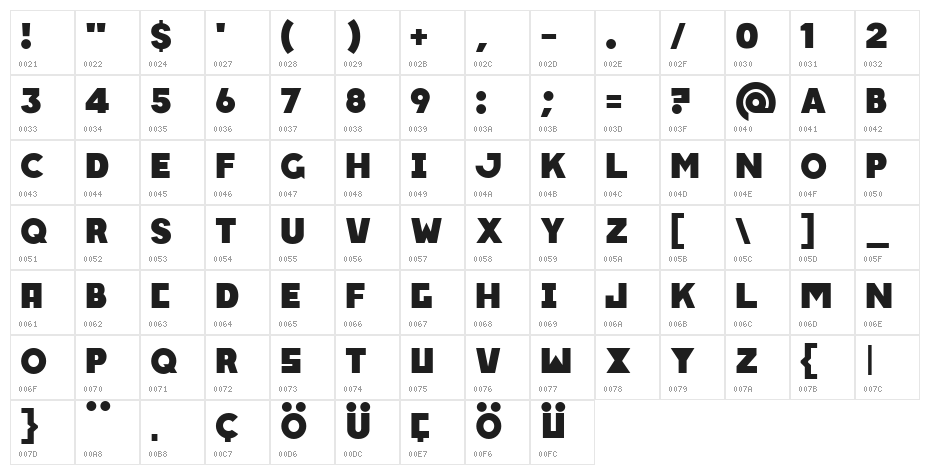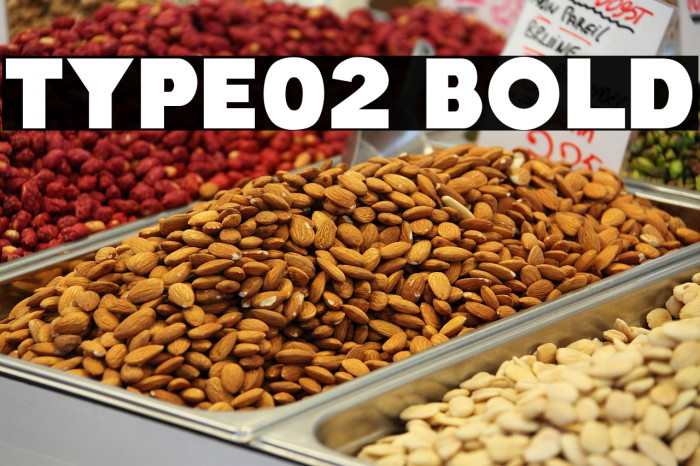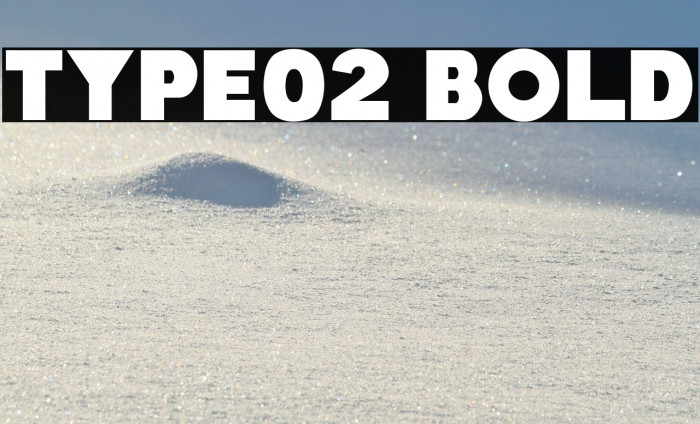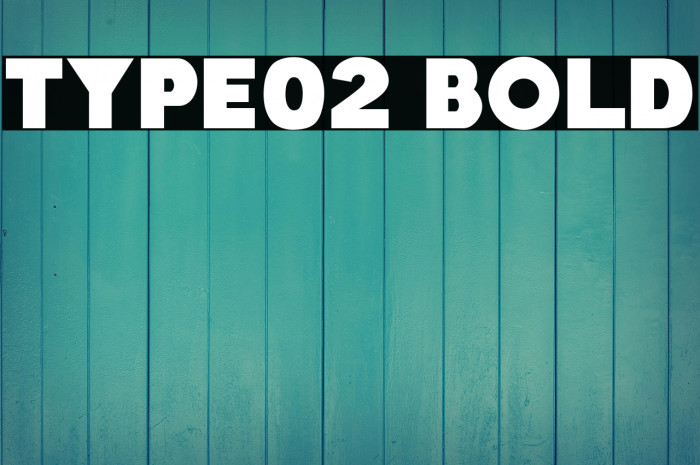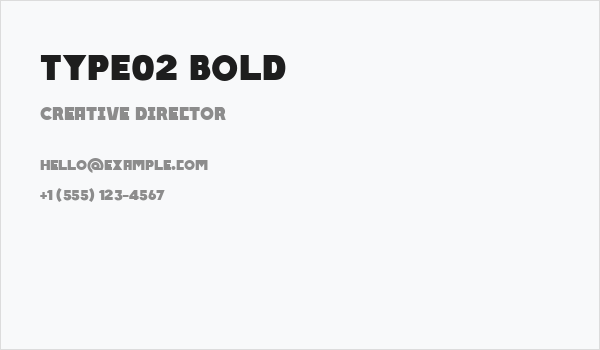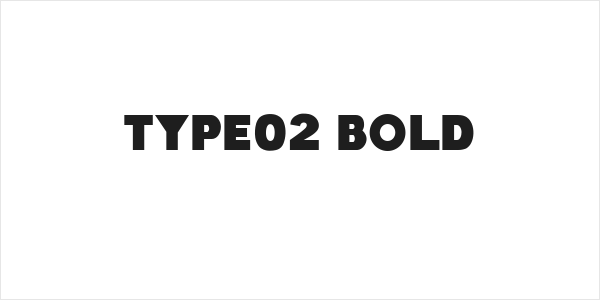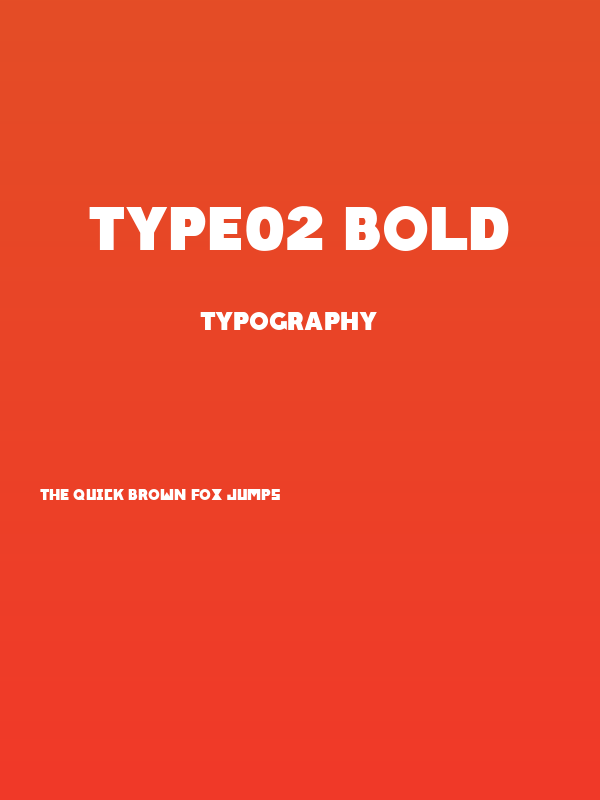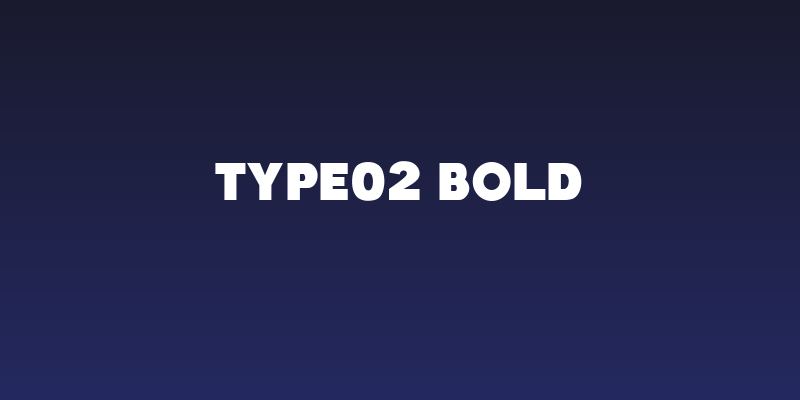
Type02 Bold Font
Type02 Bold Description
This font features bold, geometric letterforms with a strong presence. The characters are constructed with thick strokes and sharp angles, giving it a modern and assertive look. The uppercase letters are particularly striking, with a uniform height and width that create a cohesive appearance. The numbers and special characters maintain the same boldness, ensuring consistency across all glyphs. The font's design is clean and impactful, making it suitable for attention-grabbing headlines or branding materials. Its bold nature and geometric style lend it a contemporary feel, while the uniformity of the characters ensures readability.
| Proposed Projects | Ideal for branding, headlines, posters, and any design requiring a bold statement. |